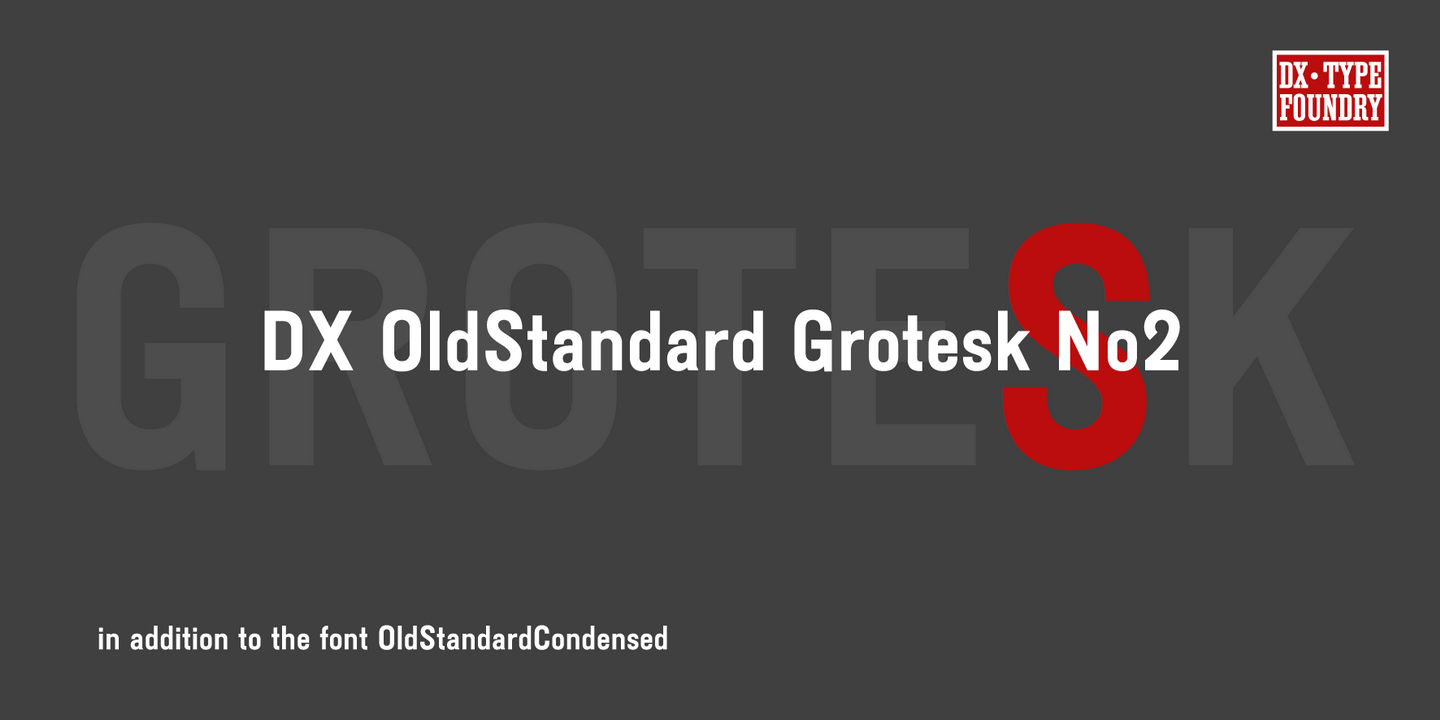
DXOldStandard Grotesk No2 Font Free Download is a modern sans-serif typeface with a clean, geometric design. Its balanced proportions and sharp edges make it suitable for a wide range of design applications, including branding, editorial layouts, and digital interfaces. The font's versatility allows it to perform well in both large display settings and smaller text sizes, ensuring readability across various platforms.
The design of DXOldStandard Grotesk No2 is inspired by early 20th-century grotesque typefaces, offering a contemporary take on a classic style. Its neutral appearance makes it adaptable to various design aesthetics, from minimalistic to more expressive compositions. The font supports both Latin and Cyrillic scripts, broadening its usability for international projects.
Incorporate DXOldStandard Grotesk No2 Font Free Download into your design projects to add a touch of modern sophistication. Its clean lines and geometric structure make it a reliable choice for designers seeking a versatile and contemporary typeface.